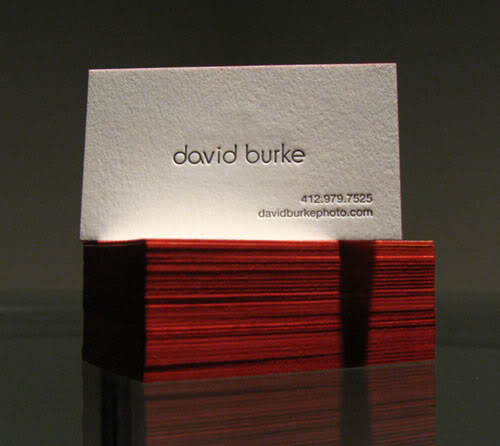
any help finding this font would be much appreciated.
EDIT: nevermind... i found it through hours of digging on fonts.com
That's Myriad Pro.
It's Frutiger.
Yes, a 13-year-old just told the diff. between Myraid and Frutiger.
The dot in the 'i' on frutiger is square. Myraid Pro is rounded.
It's not Frutiger - check the tail on the Y. In the picture the tip is at an angle, where in Frutiger it is vertical. Also, if you click on the picture in my request it will open a larger picture, where the dot on the i is round.